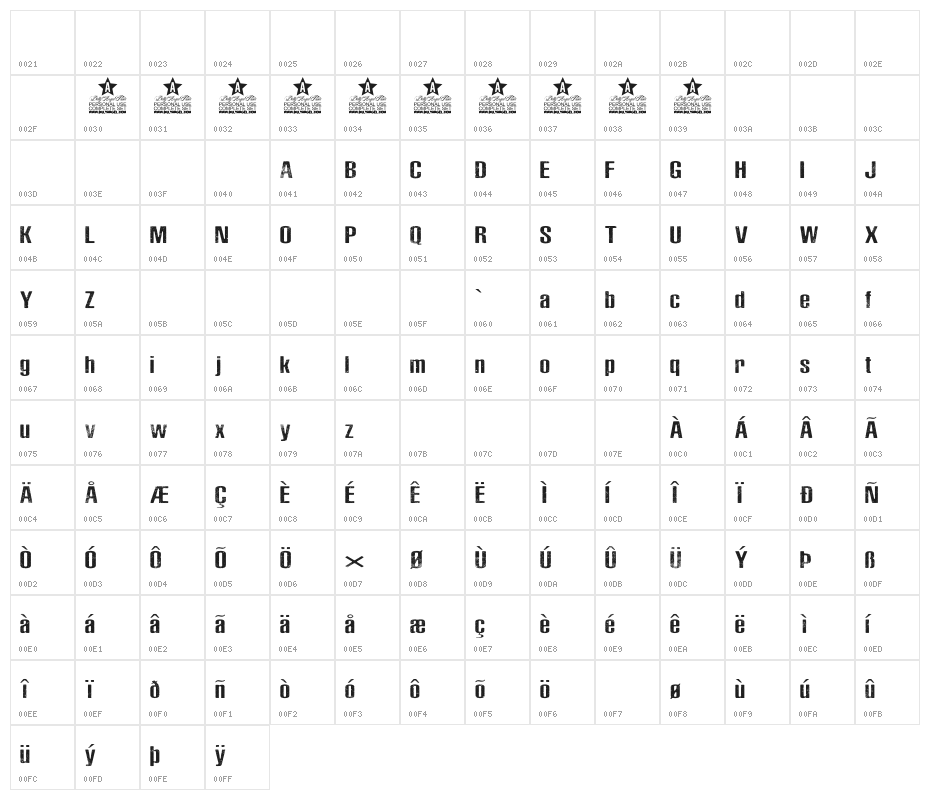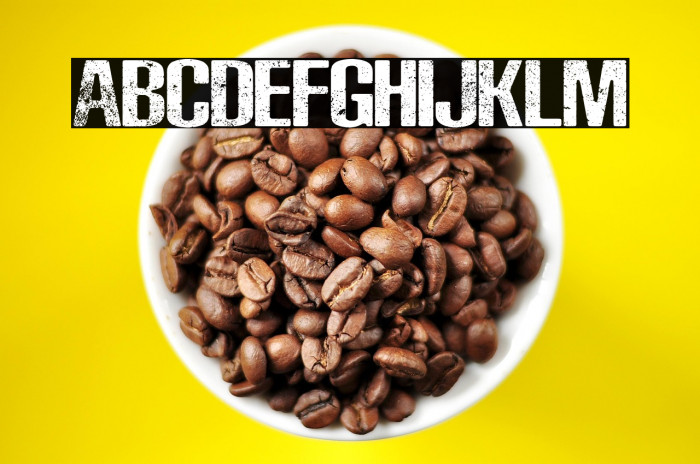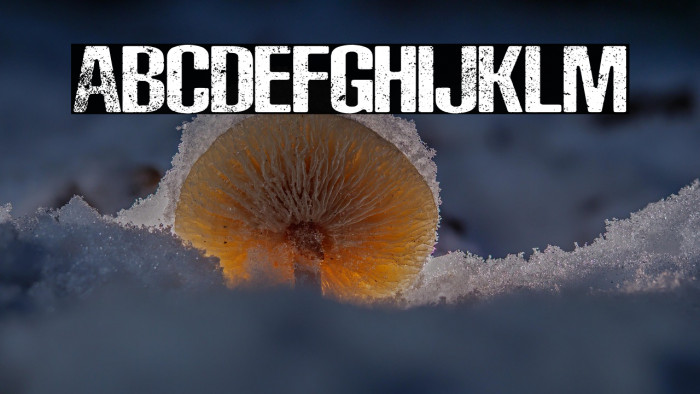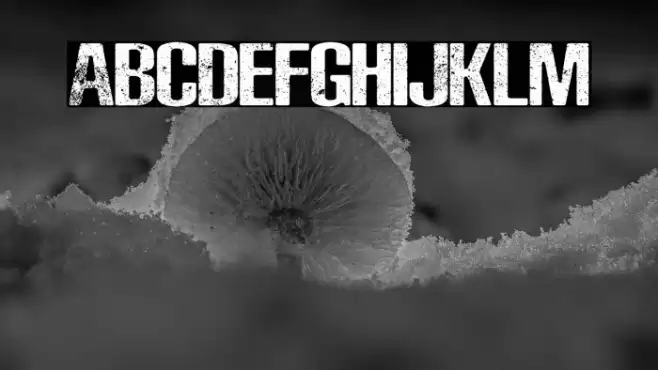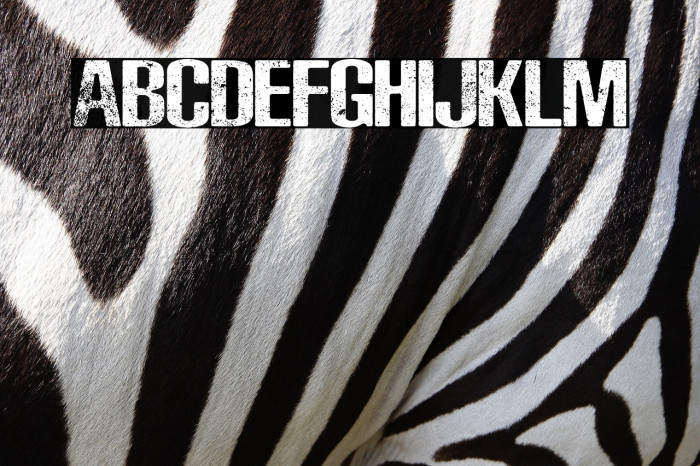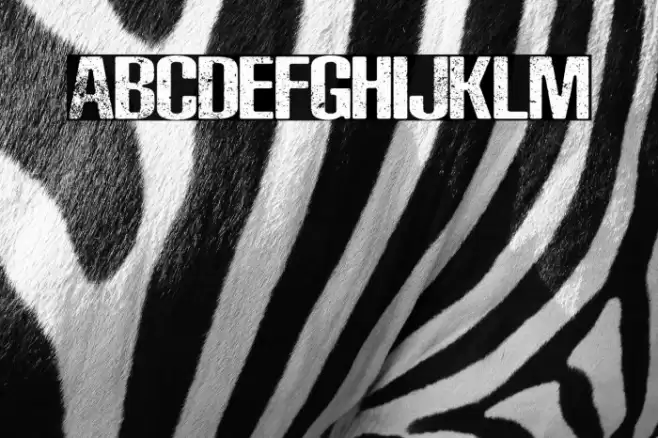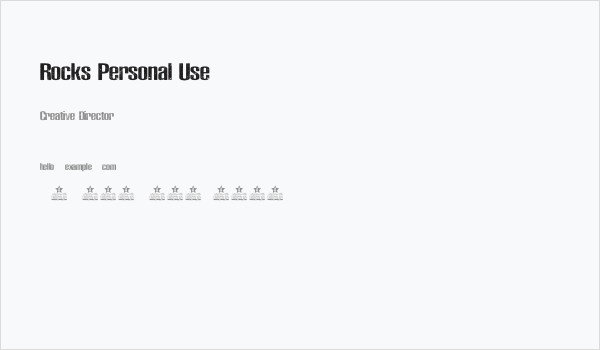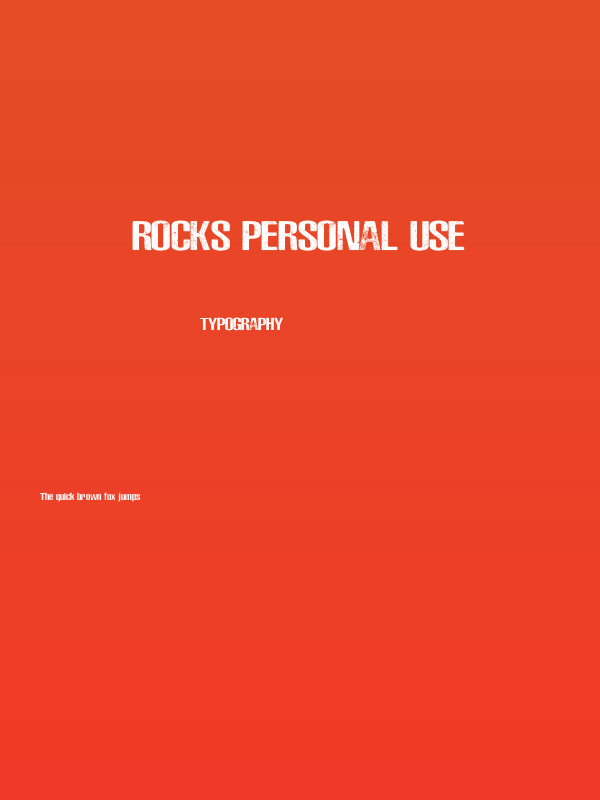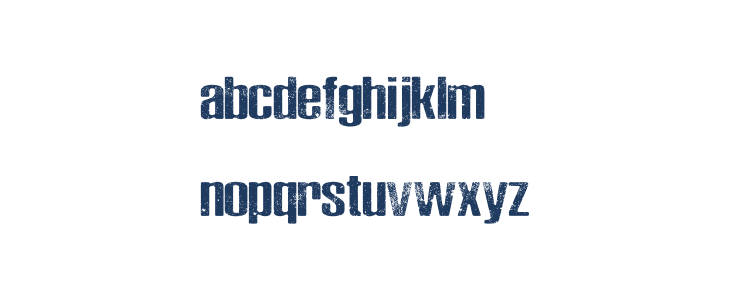
Rocks Personal Use Font
Rocks Personal Use Description
This font features a bold, distressed style with a textured appearance that gives it a rugged, worn look. The uppercase and lowercase letters maintain a consistent weight, providing a strong visual impact. The characters are slightly condensed, enhancing the boldness of the design. The texture within each letter adds a vintage, grunge feel, making it ideal for projects that require a touch of edginess or a retro aesthetic. The numbers and special characters follow the same design, ensuring uniformity across all text elements.
| Proposed Projects | Ideal for posters, album covers, branding for edgy or retro-themed products, and any design needing a bold, textured statement. |